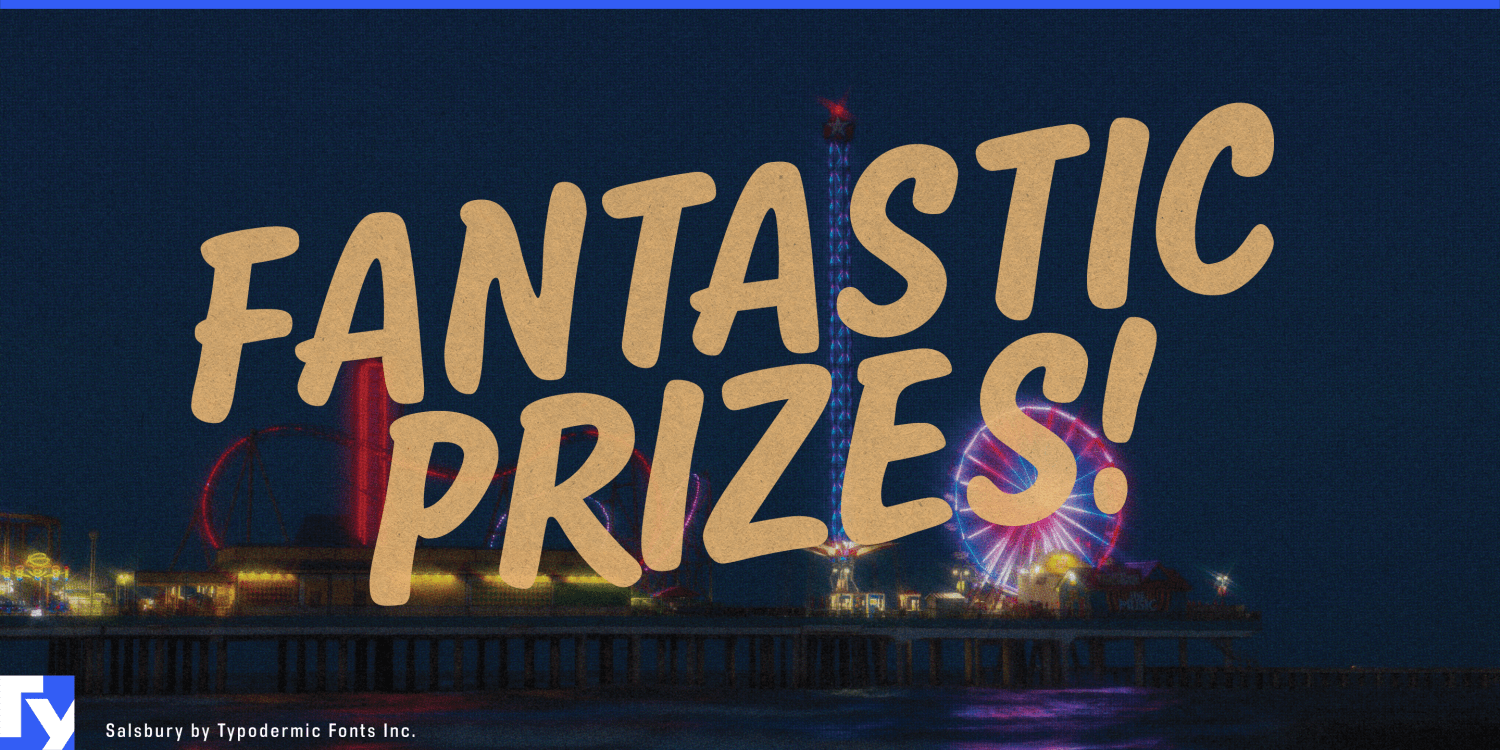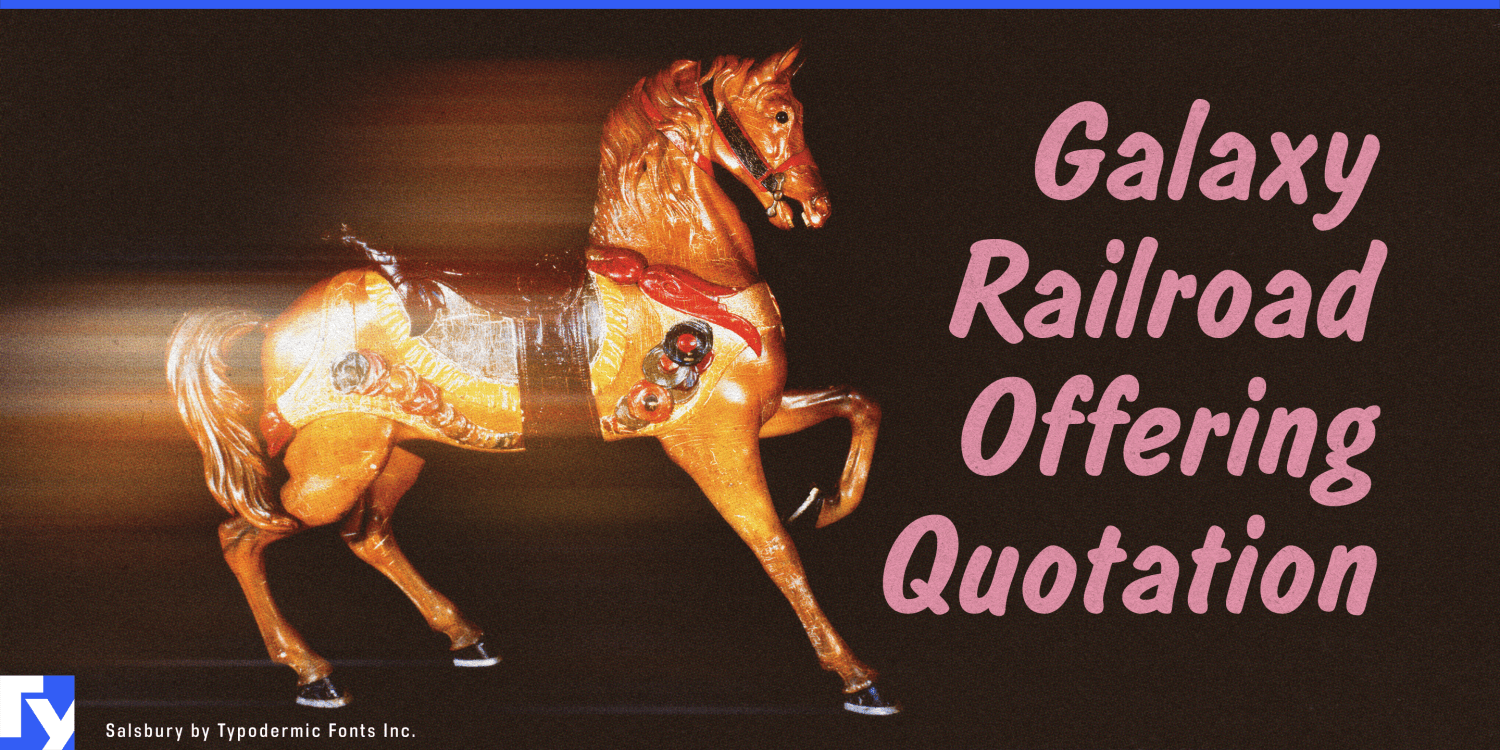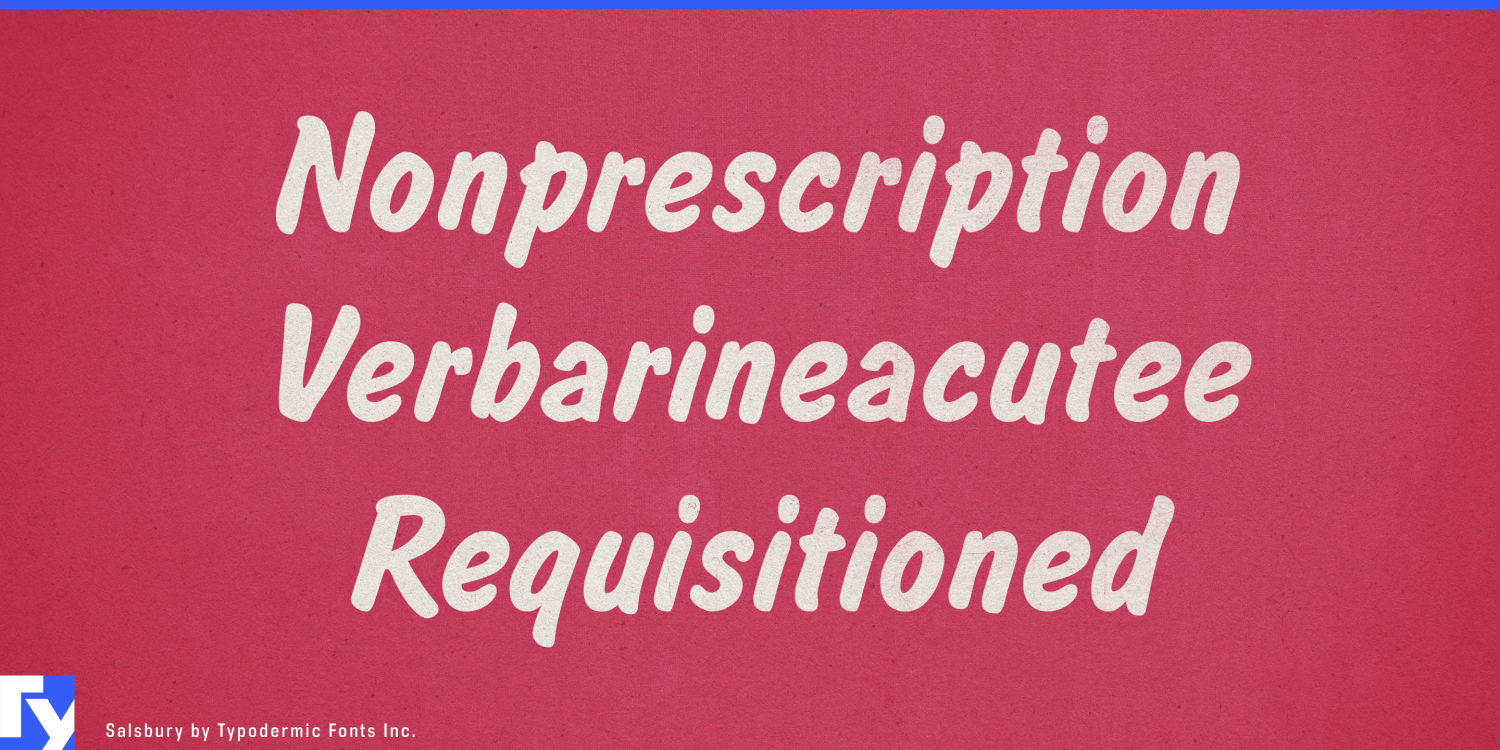
About Salsbury
Roll up, roll up! Feast your eyes on Salsbury, the typeface that brings the vibrant spirit of vintage carnivals and county fairs roaring back to life. This typeface will whisk you away to an era of cotton candy dreams and merry-go-round melodies. Crafted…